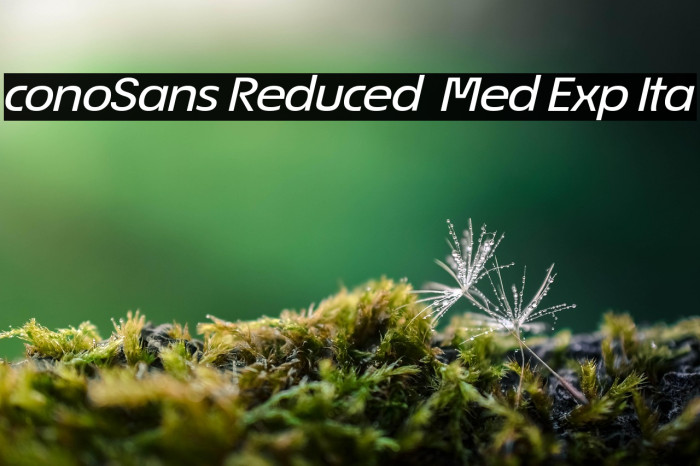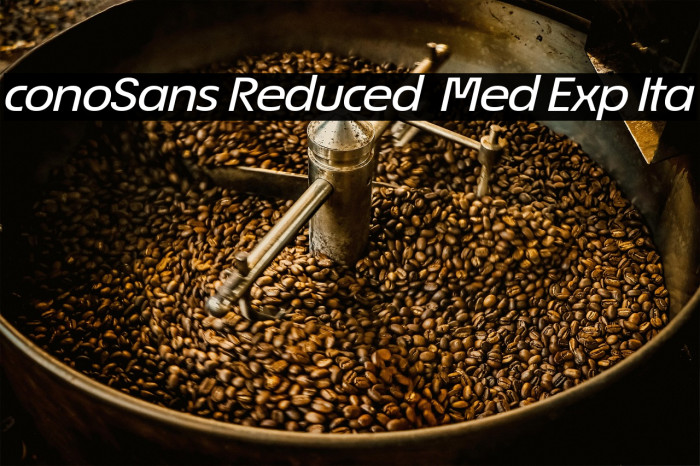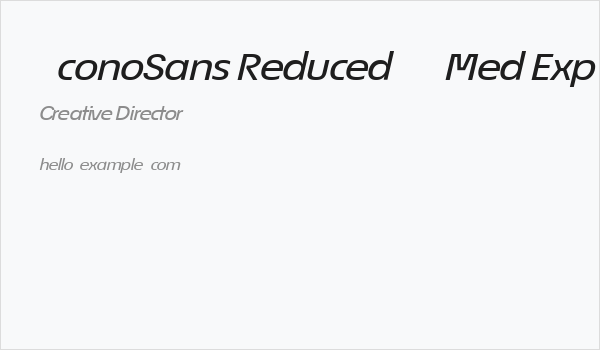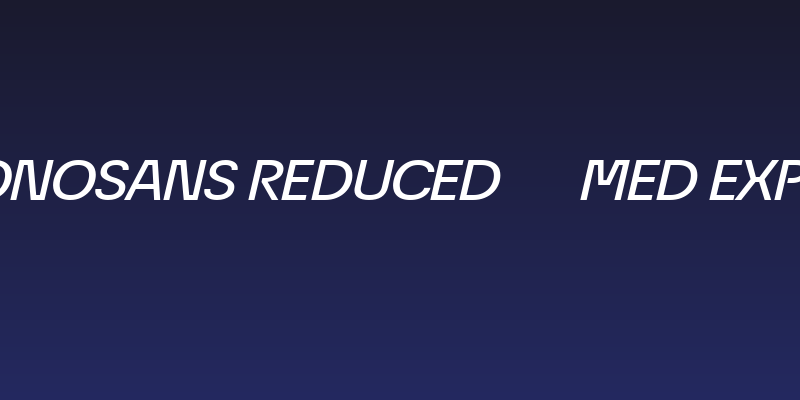
ÉconoSans Reduced 64 Med Exp Ita Font
ÉconoSans Reduced 64 Med Exp Ita Description
This font features a sleek and modern sans-serif design with an italicized style. The characters are slightly expanded, giving them a spacious and airy appearance. The strokes are consistent in thickness, providing a medium contrast that enhances readability while maintaining a stylish look. The font's clean lines and smooth curves make it versatile for various applications. Its contemporary aesthetic is ideal for projects that require a professional yet approachable feel.
WidthExpanded
Use CaseHeadlines, Logos, Digital media
Proposed ProjectsIdeal for branding, advertising, and digital media projects that require a modern and professional look.